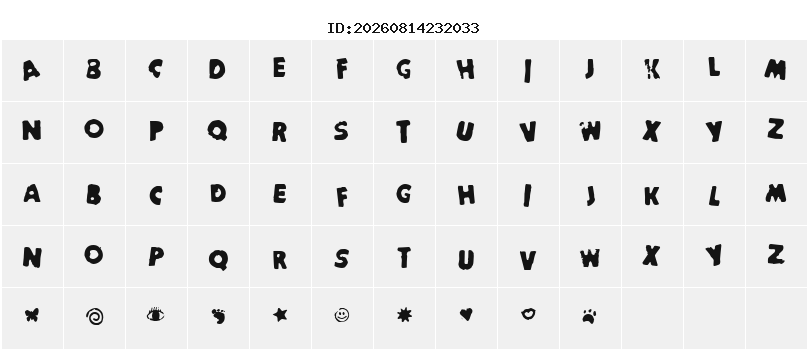
StamperFace Preview
• Font Name: StamperFace
• Font ID: FontFace 98 StamperFace
• Full Font Name: StamperFace
• Version: FontFace Original v1.0
• PostScript Name: StamperFace
• Character Count: 67
About StamperFace.ttf
StamperFace.ttf is a modern, elegant sans-serif font designed for ultimate readability and visual harmony. Perfect for branding, headlines, web design, and print materials.